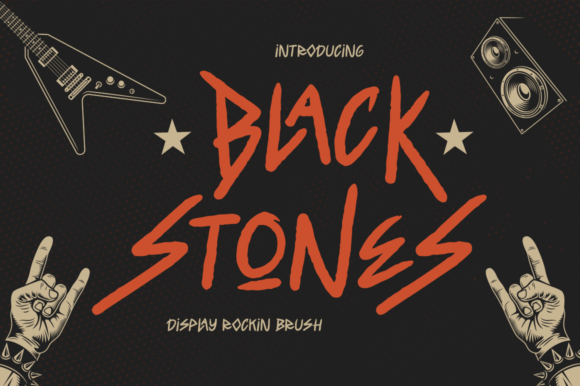
Step into the realm of captivating typography with Black Stones Font – a display brush script font curated by the visionary minds of illushvara. This remarkable font embodies the essence of rock music, infusing your designs with a raw and untamed energy. Black Stones' strokes dance and intertwine, creating a visual symphony that resembles the texture of a handwritten grunge line. Its inherent elegance makes it a standout choice for logotype applications, where it commands attention and leaves a lasting impression.
Unleash your creativity and let Black Stones transform your headlines into bold statements. Its dynamic character is a perfect fit for e-sport logos, where it exudes a sense of competition and adrenaline. Bring a touch of edginess to food packaging, creating a memorable and mouthwatering experience for consumers. Elevate fashion magazines with Black Stones' unique personality, making your publications stand out on the crowded shelves. This font adds a touch of sophistication to labels, lending a sense of exclusivity to your products.
Black Stones' versatility shines in any advertising venture, captivating audiences with its unconventional charm. Its rugged appearance adds depth and dimension to posters, creating a visual spectacle that demands attention. Embrace the power of Black Stones and let your designs speak volumes.